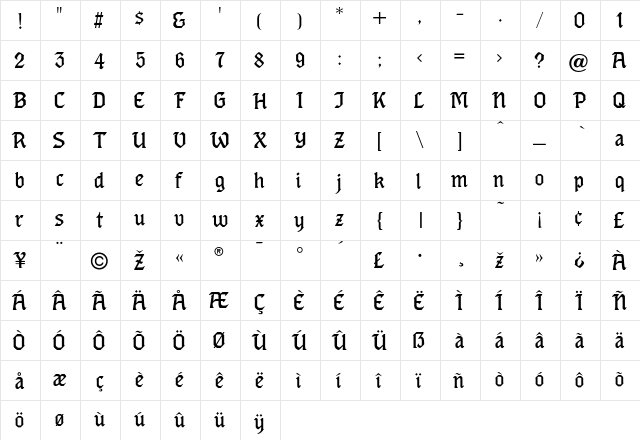
ErosText Regular
| Foundry | Digitized by Dan X. Solo. Software Dover Publications, Inc |
Design Context for ErosText Typeface
ErosText is a composed and adaptable typeface that performs quietly and consistently across a wide range of design contexts.